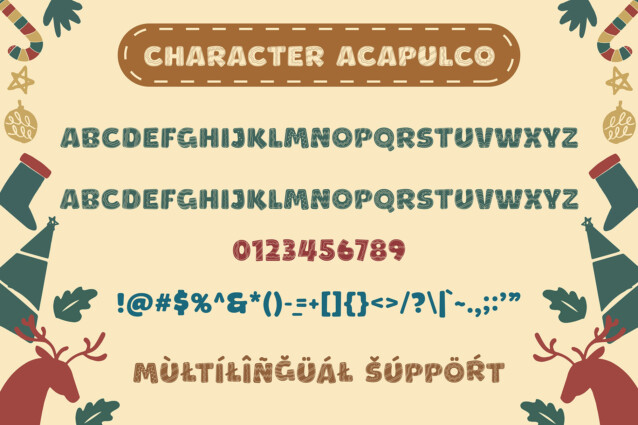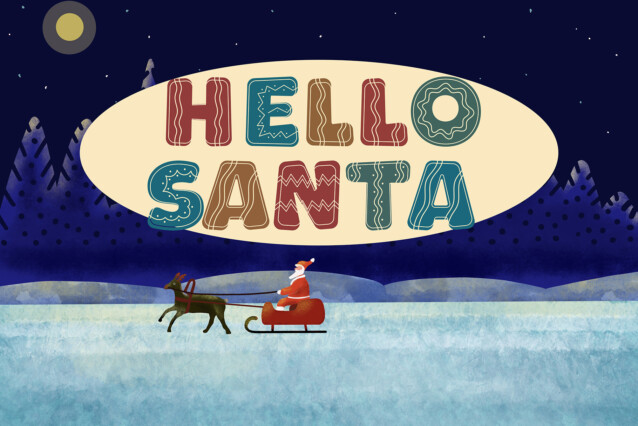
Acapulco Font, a simple and decorative font. So perfect for you who needs a typeface for logo designs, magazine, social media, brochure, and many more.